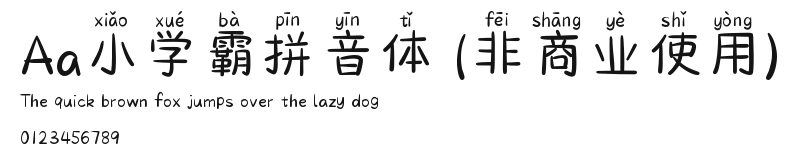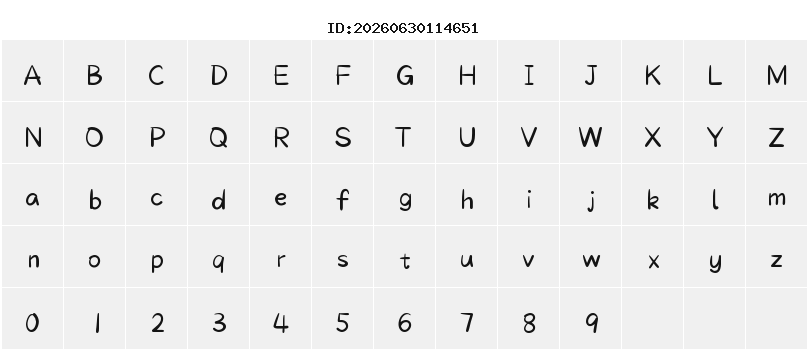
• Font Name: Aa小学霸拼音体 (非商业使用)
• Designer: Aa
• Manufacturer: 北京奇思众和科技有限公司
• Description: AaXiaoxuebapinyint (Non-Commercial Use) is a fantastic font with excellent features designed for user interfaces and electronic communications.
Aa小学霸拼音体 (非商业使用).ttf is a modern, elegant sans-serif font designed for ultimate readability and visual harmony. Perfect for branding, headlines, web design, and print materials.